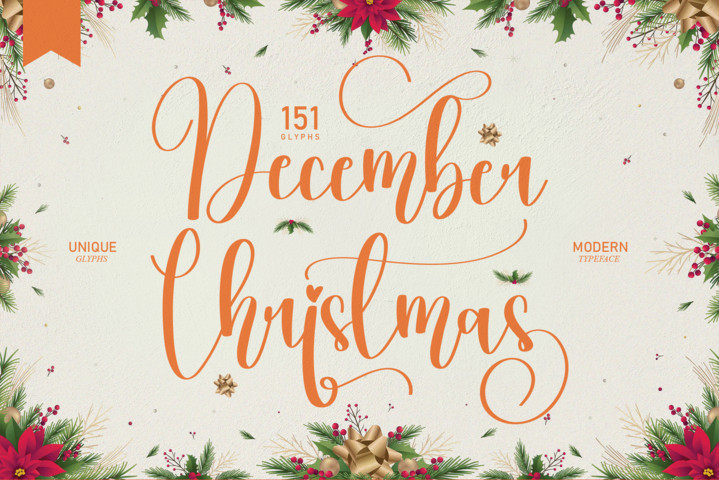
December Christmas Script Font
special creative products for you, our products will give you an extraordinary experience.
the latest style letters are perfect for wall displays, wedding invitations, social media post logos,
advertisements, product packaging, product designs, labels, photography, watermarks, invitations, stationery,
and any project that requires taste handwriting.